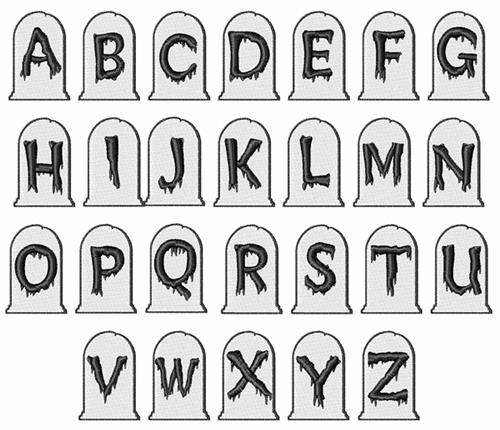
Embroidery Patterns is happy to present Graveyard Embrilliance Embroidery Font - Decorative Fill Letters - BX font machine embroidery font which has This decorative machine embroidery font mimics gravestones, with each letter showcasing a dripping effect perfect for Halloween projects. Ideal for spooky themed decorations and available in Embrilliance and BX font formats. included. If you would like to view more embroidery fonts and alphabets please search our embroidery fonts page.
Graveyard Embrilliance Embroidery Font - Decorative Fill Letters - BX font